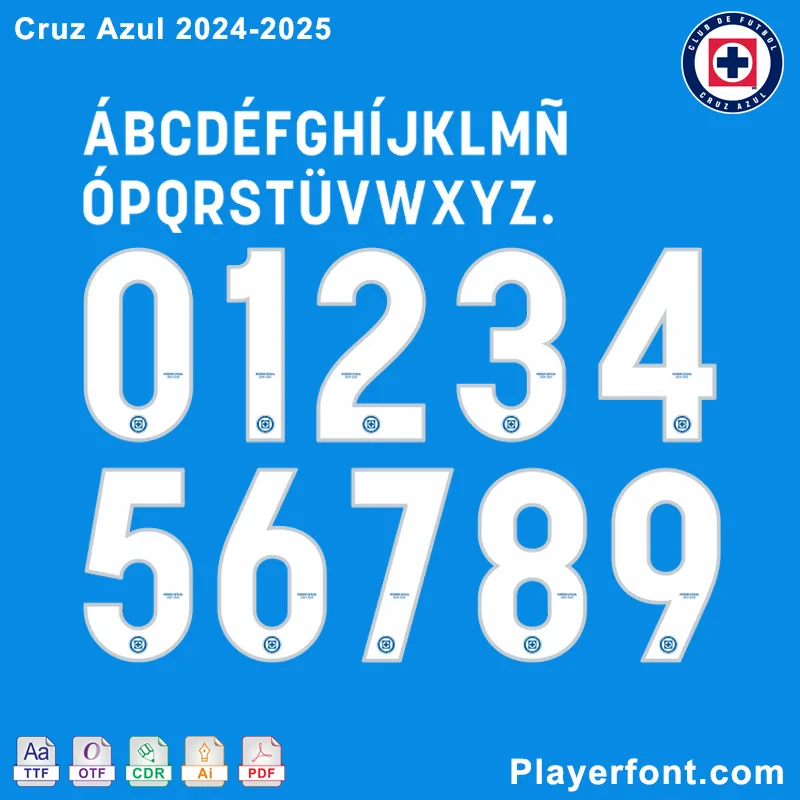
Cruz Azul 2024-2025 Font Download: Official Typeface for Fans and Designers
Bring the passion of Cruz Azul to your projects with the Cruz Azul 2024-2025 Font Pack, crafted based on the official typography for the 2024-2025 season. Ideal for sports branding, merchandise, and creative designs, this font embodies the spirit of one of Mexico’s most iconic football clubs.